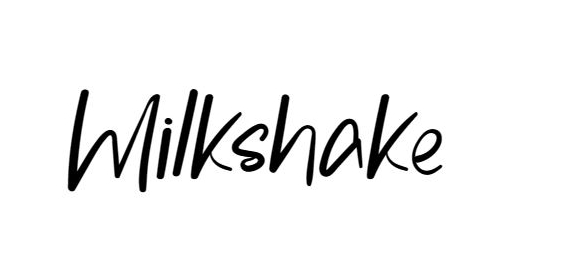
Aloja font
Aloja is a handwritten font. The letters have the small wobbles and personality of real handwriting, so your text feels warm instead of printed. You can download it for free and test it with your own words in the preview above.
What You Can Type With Aloja
You get every letter from A to Z in both cases and all the numbers from 0 to 9, which means Aloja can handle full sentences, dates and prices. Common punctuation such as &, !, ? and @ is included as well. It doesn't include accented letters such as é or ñ, which makes it an English-only font.
Where Aloja Works Best
Think of Aloja for greeting cards, journal pages and friendly social posts. Set it a bit larger than you would a normal text font. Handwriting styles lose their charm once they get too small to read comfortably.
Does Aloja support accented letters?
No. Aloja has no accented letters such as é, ñ or ü, so it's best for English text.